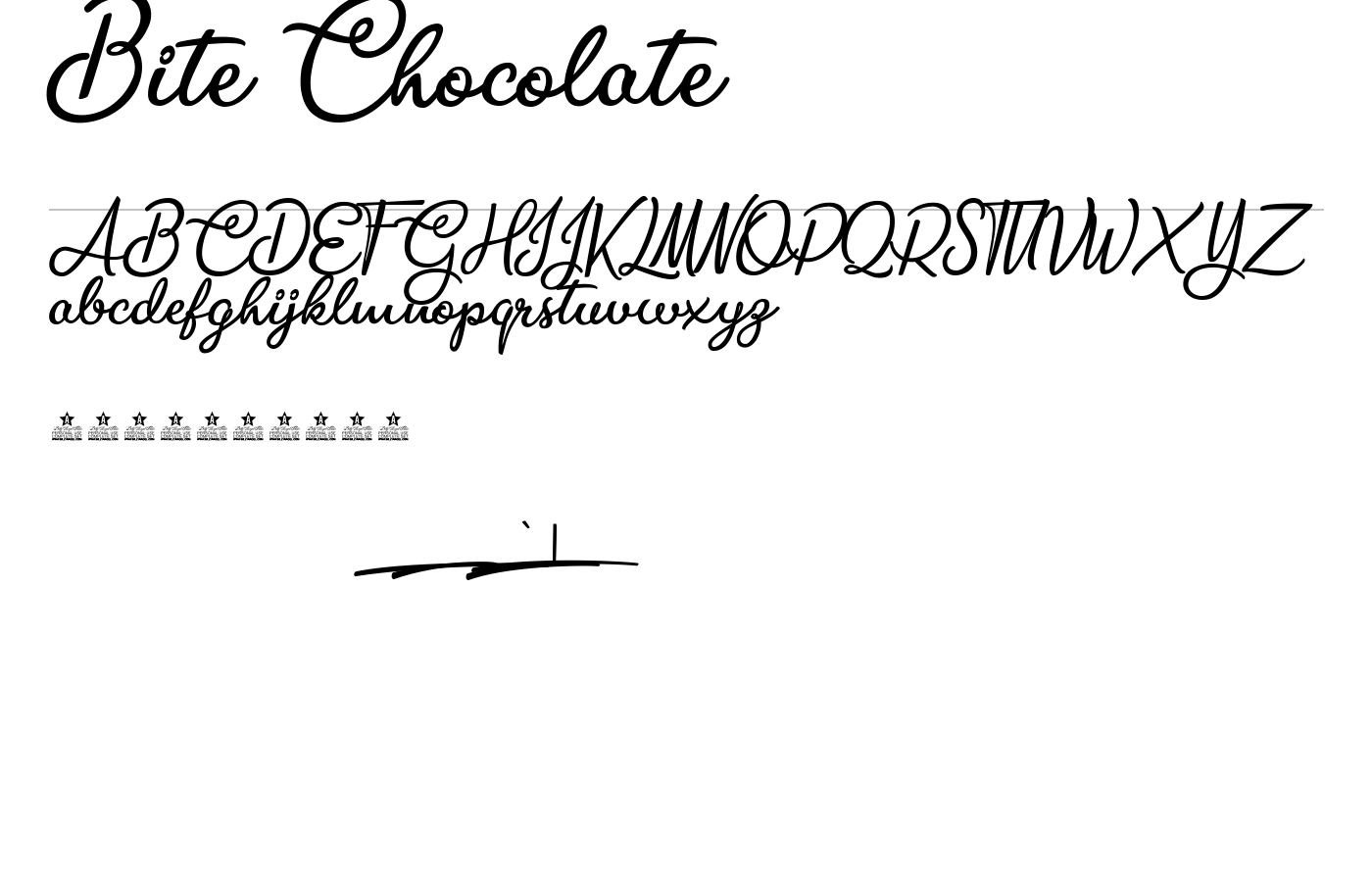
Bite Chocolate is an elegant script font characterized by its smooth, flowing strokes and a casual yet refined handwritten style. With its moderate weight and slightly condensed letterforms, it offers a friendly and approachable feel, perfect for adding a personal touch to branding, invitations, or packaging that calls for warmth and sophistication. This font works beautifully in logos, headlines, and decorative text where charm and legibility are essential.
Bite Chocolate Font
About Bite Chocolate Font
| Font family | Bite Chocolate Font |